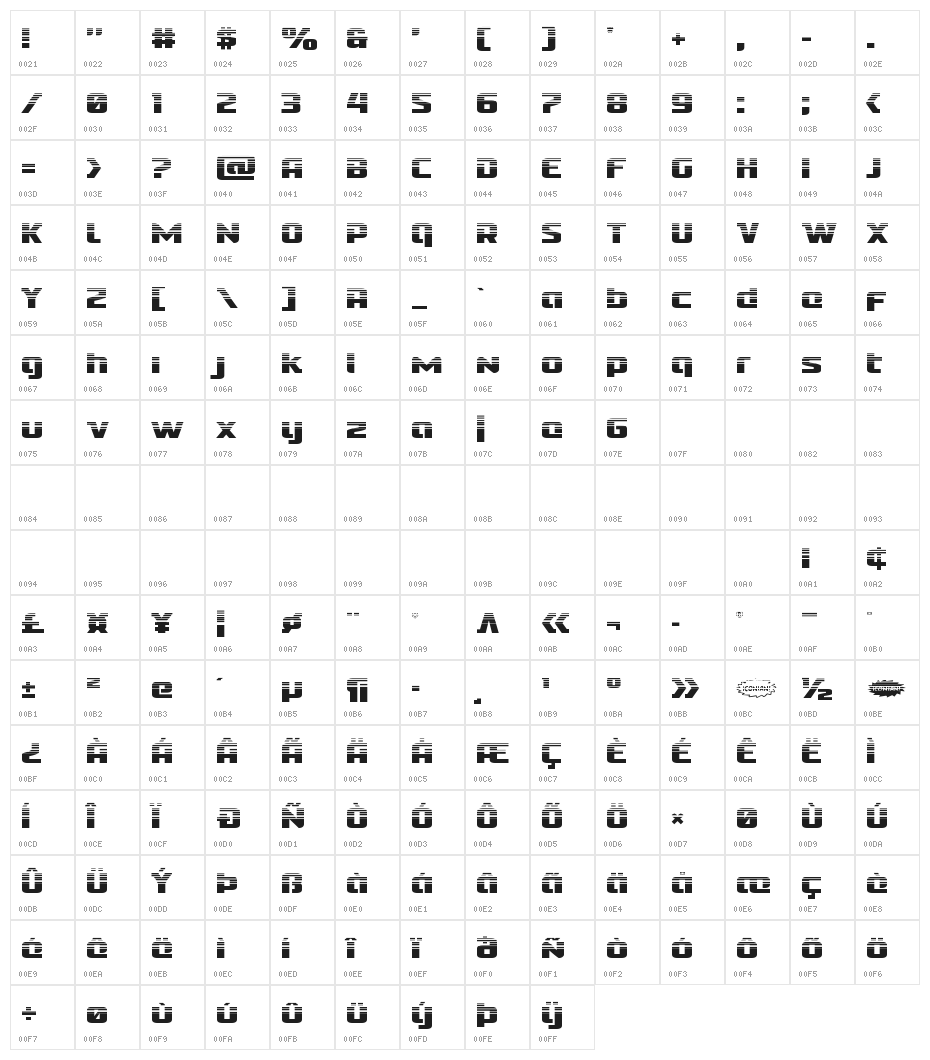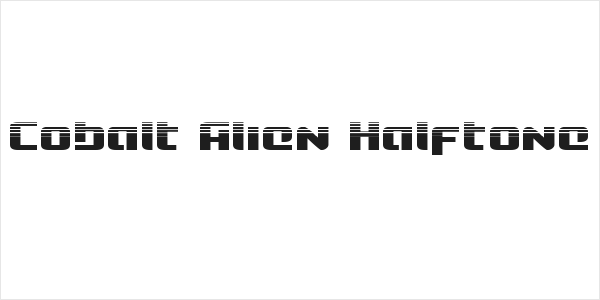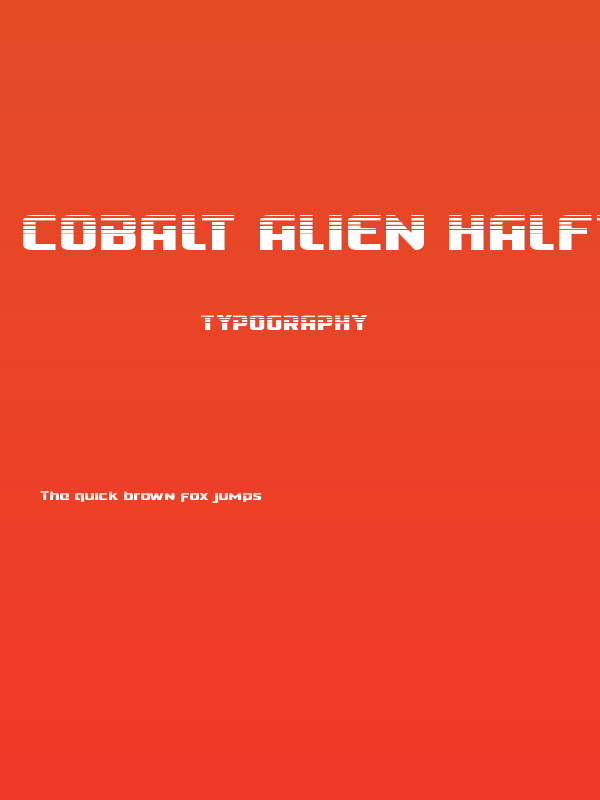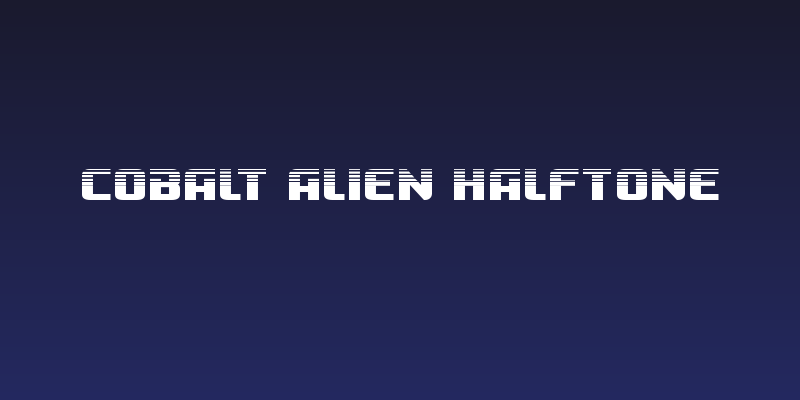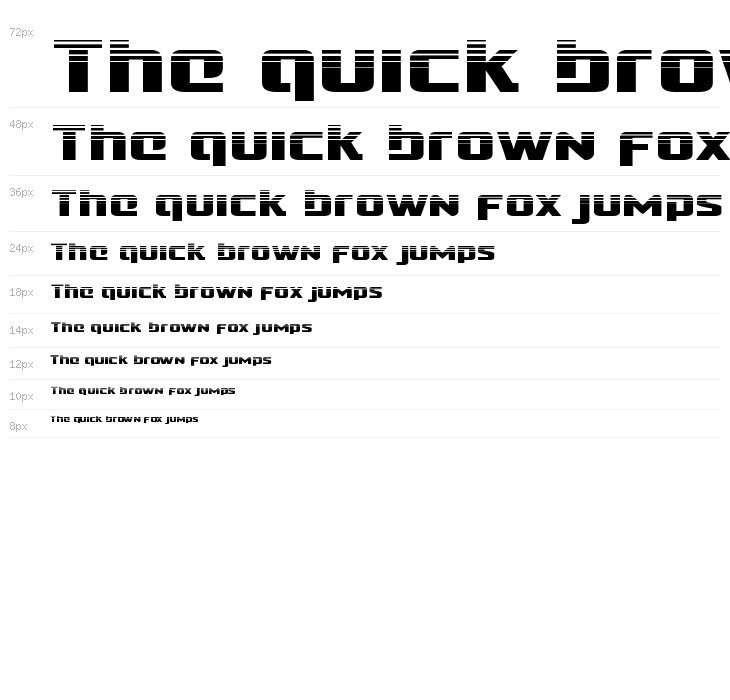
Cobalt Alien Halftone Font
Cobalt Alien Halftone Description
This font features a futuristic and bold design with a distinct halftone effect that gives it a unique, digital appearance. The characters are constructed with a series of horizontal lines that create a sense of movement and depth. The uppercase and lowercase letters maintain a consistent style, with sharp angles and geometric forms that enhance its modern aesthetic. The numerals and special characters follow the same design principles, ensuring uniformity across the font. This typeface is ideal for projects that require a strong visual impact and a contemporary feel.
| Proposed Projects | Ideal for sci-fi themed posters, video game titles, tech branding, and digital art projects. |